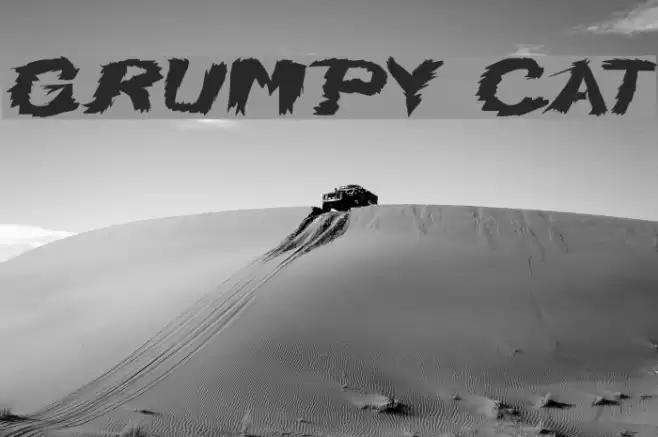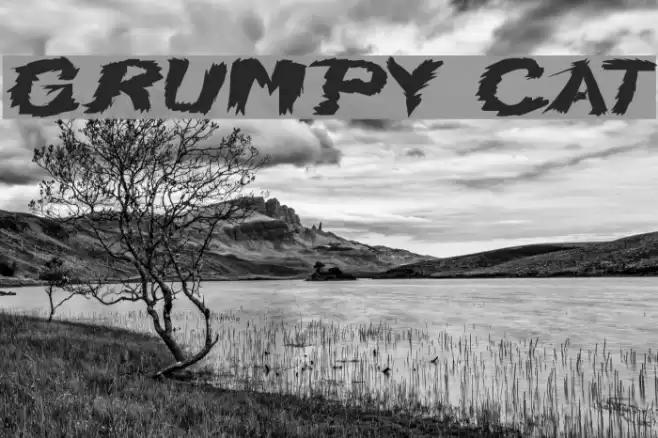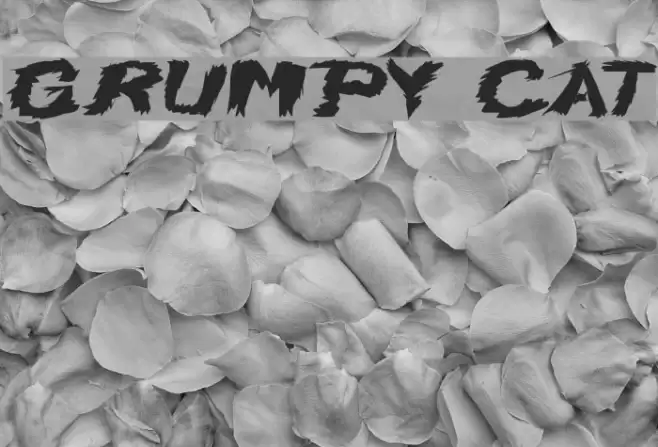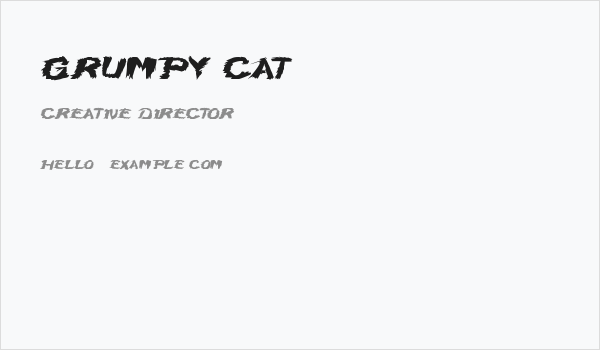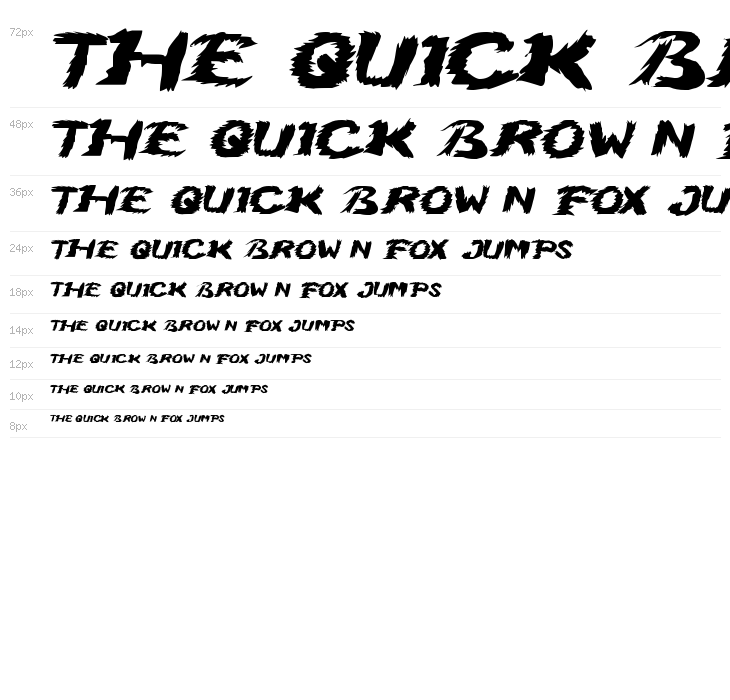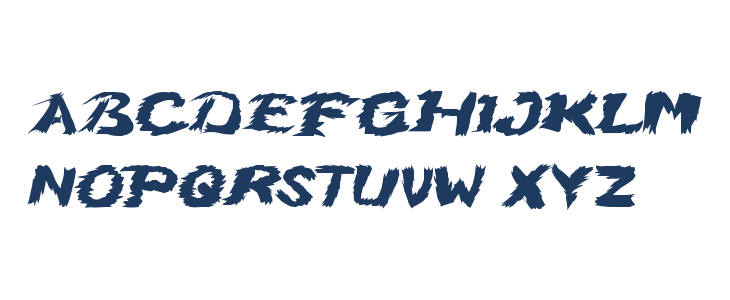
Grumpy Cat Font
Grumpy Cat Description
This font features a bold and edgy design with sharp, jagged edges that give it a dynamic and aggressive appearance. The characters are heavily stylized, resembling claw marks or torn paper, which adds a sense of movement and intensity. The uppercase letters are particularly striking, with each character maintaining a consistent height and width, while the lowercase letters follow a similar style, ensuring uniformity across the typeface. The font's unique aesthetic makes it stand out, capturing attention with its dramatic flair. It's perfect for projects that require a bold statement or a touch of rebelliousness.
A bold, edgy font with sharp, jagged edges resembling claw marks from Fancy fonts.
- Proposed Projects: Ideal for horror-themed posters, edgy branding, video game titles, or music album covers.
- Overall Style: Modern, Decorative